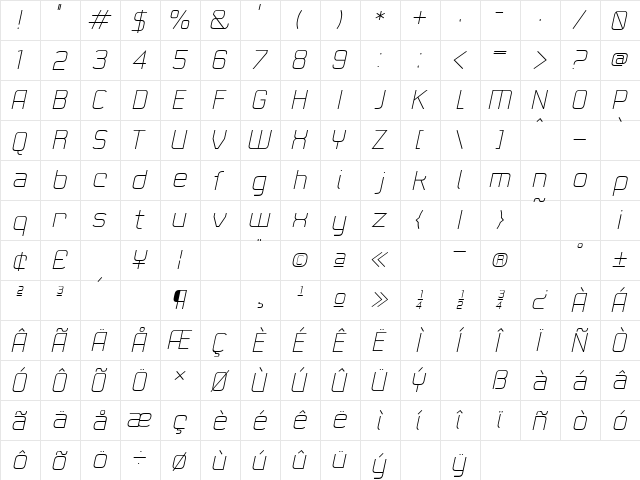
21st FineItalic
Design Context for 21st Typeface
21st takes a measured approach to typography — its balanced proportions and neutral character make it a reliable workhorse for both digital and print work. Its italic angle brings a sense of urgency and motion to the letterforms.
Pro Tip: Use 21st for emphasis, pull quotes, and subheadings where its slanted energy can add rhythm to the layout.